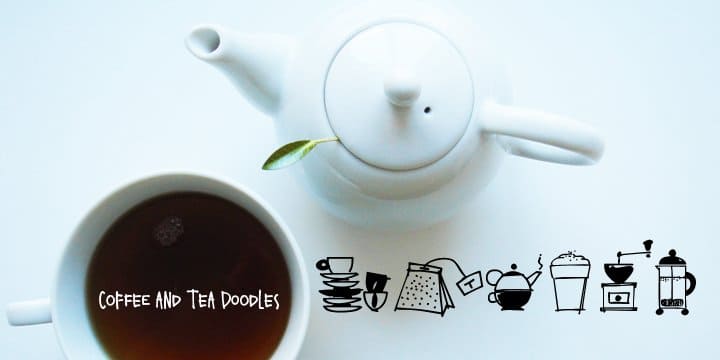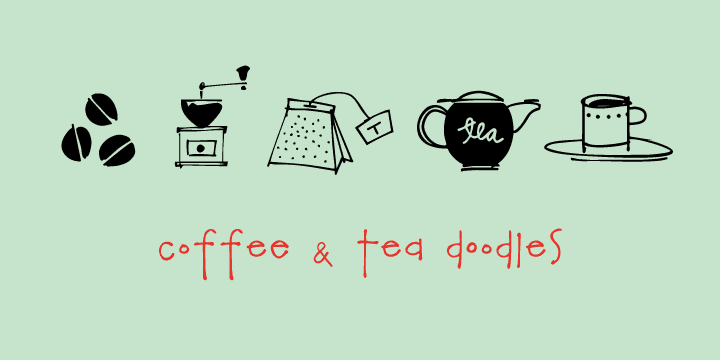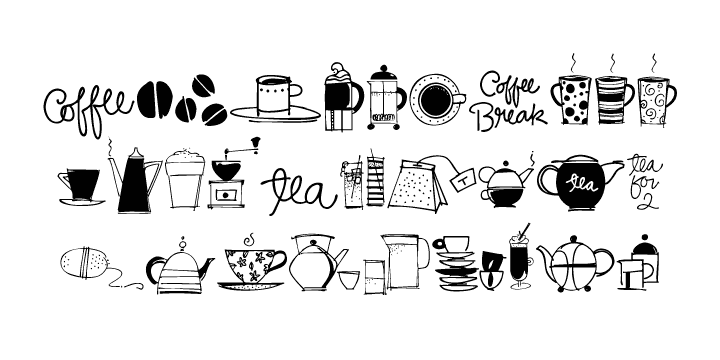
Coffee and Tea Doodles (1 font)
Coffee and Tea Doodles are a font of coffee and tea things-- beans, cups, drinks, tea bag, iced tea, tea sets etc.
Perfect set of clip art for coffee or tea shop menus, ads, invitations, etc. Includes scripted words that include coffee, tea, coffee break and tea for 2.